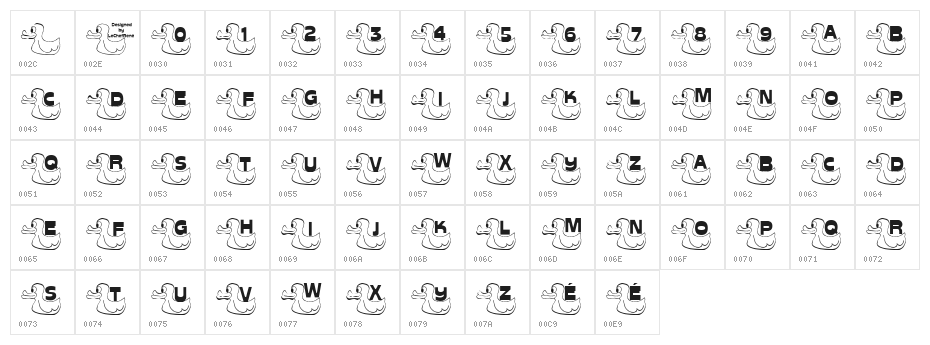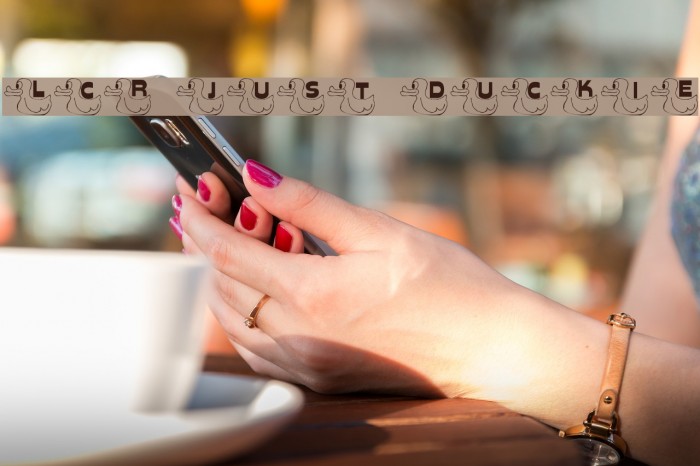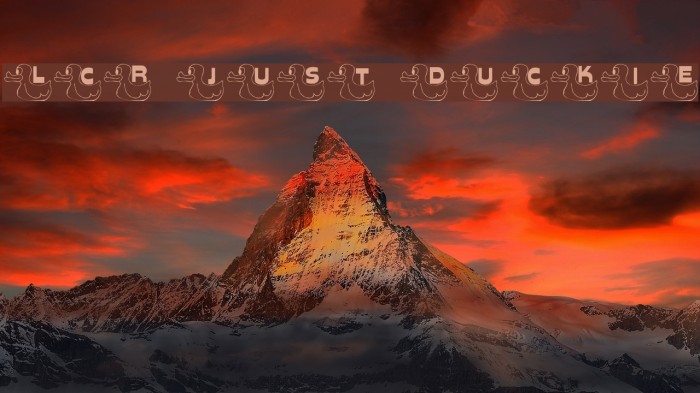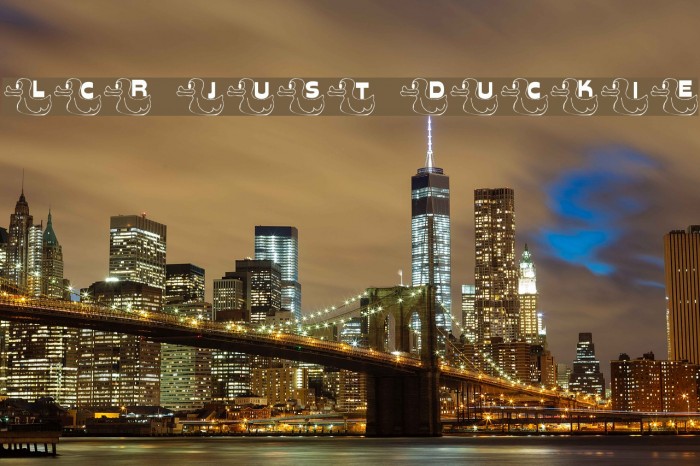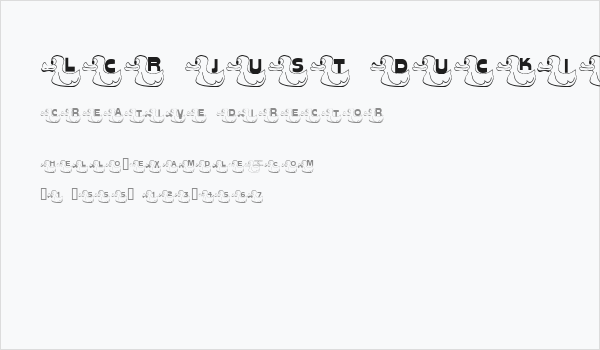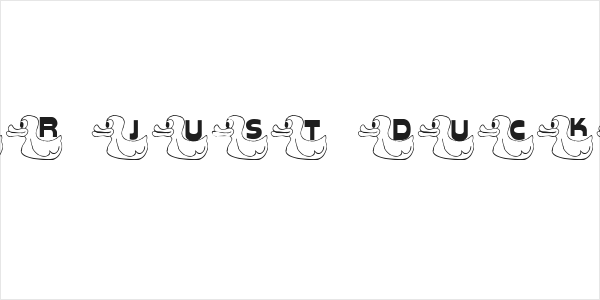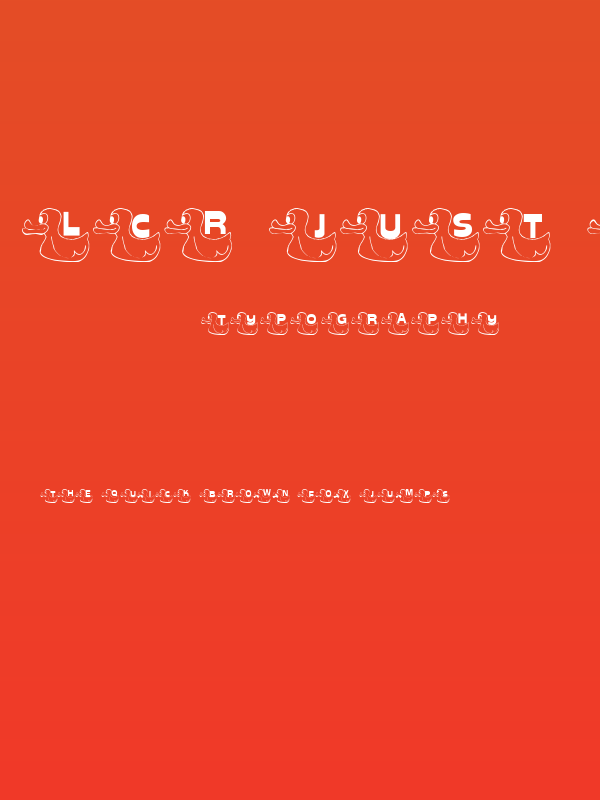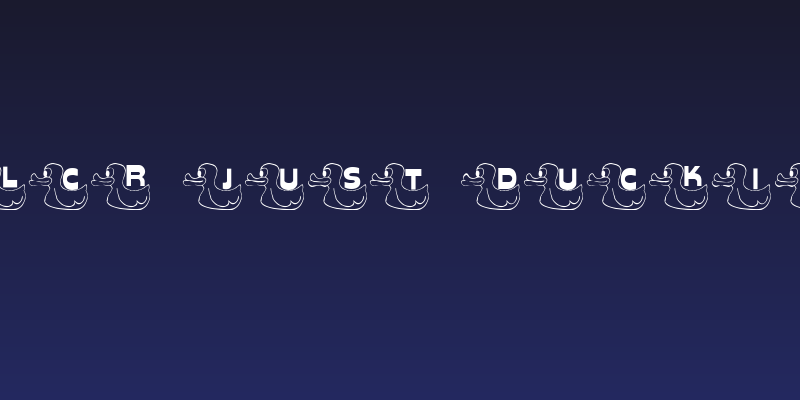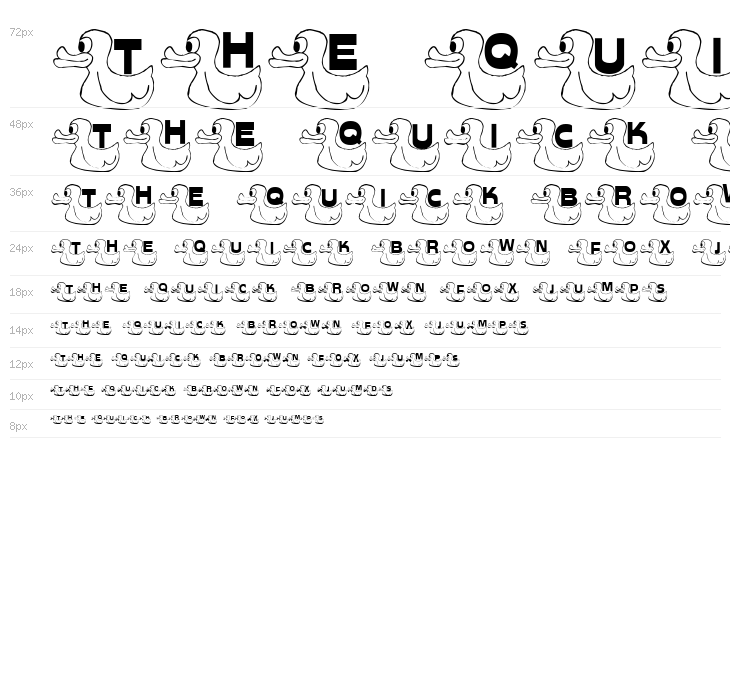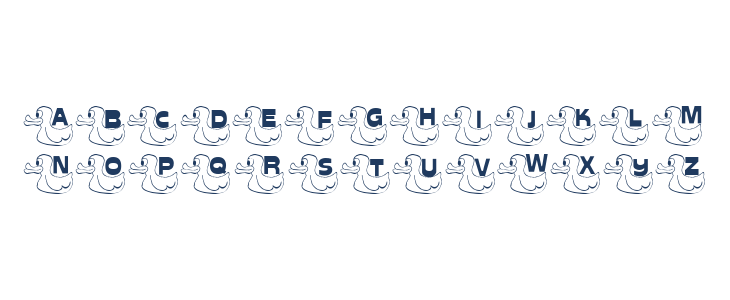
LCR Just Duckie Font
LCR Just Duckie Description
This playful and whimsical font features each character embedded within a cartoon duck illustration. The letters and numbers are bold and clear, making them stand out against the detailed duck design. The font is highly decorative, with each character sitting atop a duck, adding a unique and fun element to any project. The style is consistent across uppercase, lowercase, and numeric characters, maintaining a cohesive look. The ducks are drawn with a simple outline, allowing the bold characters to remain the focal point. This font is perfect for projects that require a lighthearted and humorous touch.
| Proposed Projects | Ideal for children's books, playful branding, party invitations, and educational materials. |